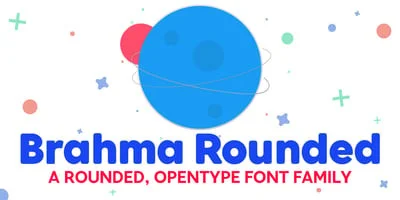
Brahma Rounded Font
Brahma Rounded Font is perfect for wellness branding, meditation apps, yoga studios, spiritual retreats, holistic health centers, mindfulness websites, zen-inspired designs, organic product packaging, peaceful restaurant menus, and any projects that need to convey tranquility, balance, and inner harmony.
What makes Brahma Rounded Font exciting is its serene design philosophy that embodies the peaceful essence of mindfulness and spiritual balance through gentle, rounded letterforms. This harmonious typeface features soft curves and balanced proportions that create a calming visual rhythm, evoking feelings of tranquility and centered awareness. The font's zen-like character makes it perfect for brands seeking to communicate wellness, mindfulness, and the pursuit of inner peace in their visual communications.
Brahma Rounded Font family includes mindful weight variations featuring light, regular, medium, and bold options. The font family also offers meditation-inspired italic versions with flowing characteristics, along with condensed and extended variants for different spiritual design applications. Special features include wellness symbols, chakra ornaments, and peaceful decorative elements that enhance the meditative atmosphere of any project.
Find your center with Brahma Rounded Font and bring spiritual harmony to your creative projects through typography that speaks to the soul. This peaceful typeface delivers exceptional clarity while maintaining the gentle energy needed for wellness communication, ensuring your message resonates with seekers of balance and tranquility. Download Brahma Rounded Font today and transform your designs with typography that cultivates inner peace, creating meaningful connections with audiences on their journey toward mindfulness and spiritual growth.